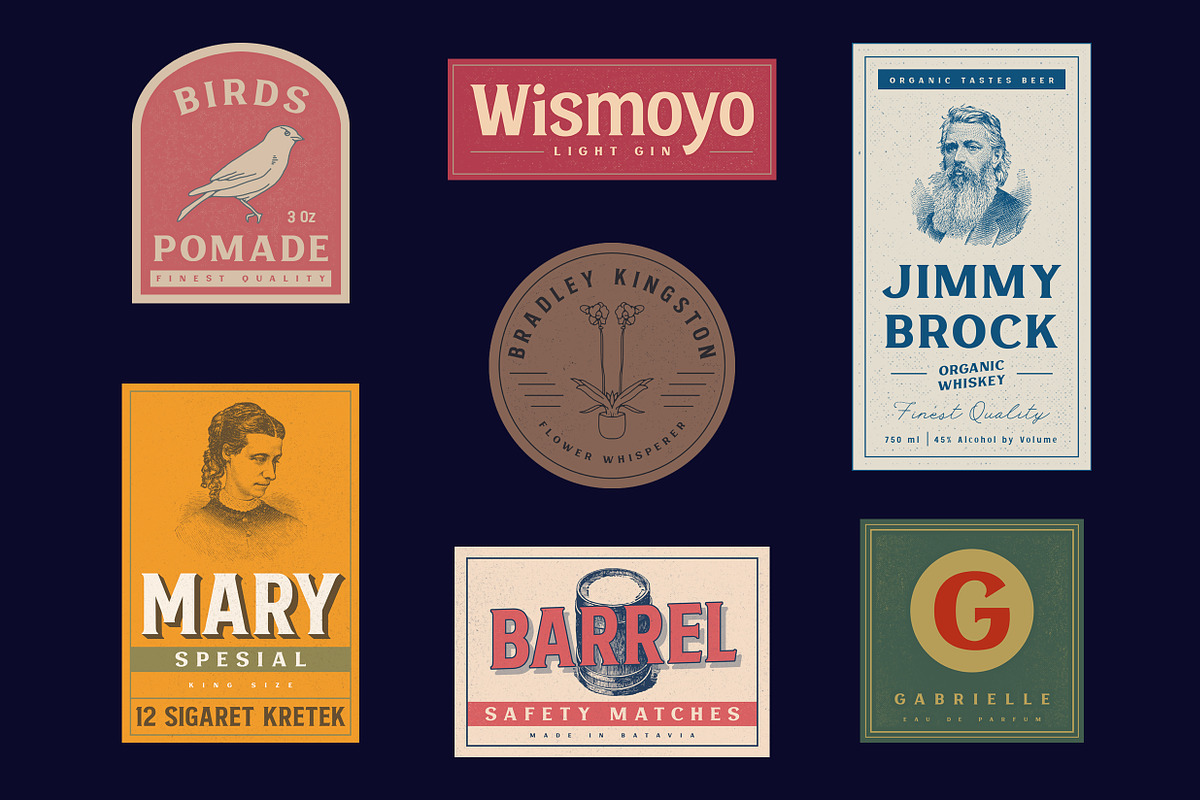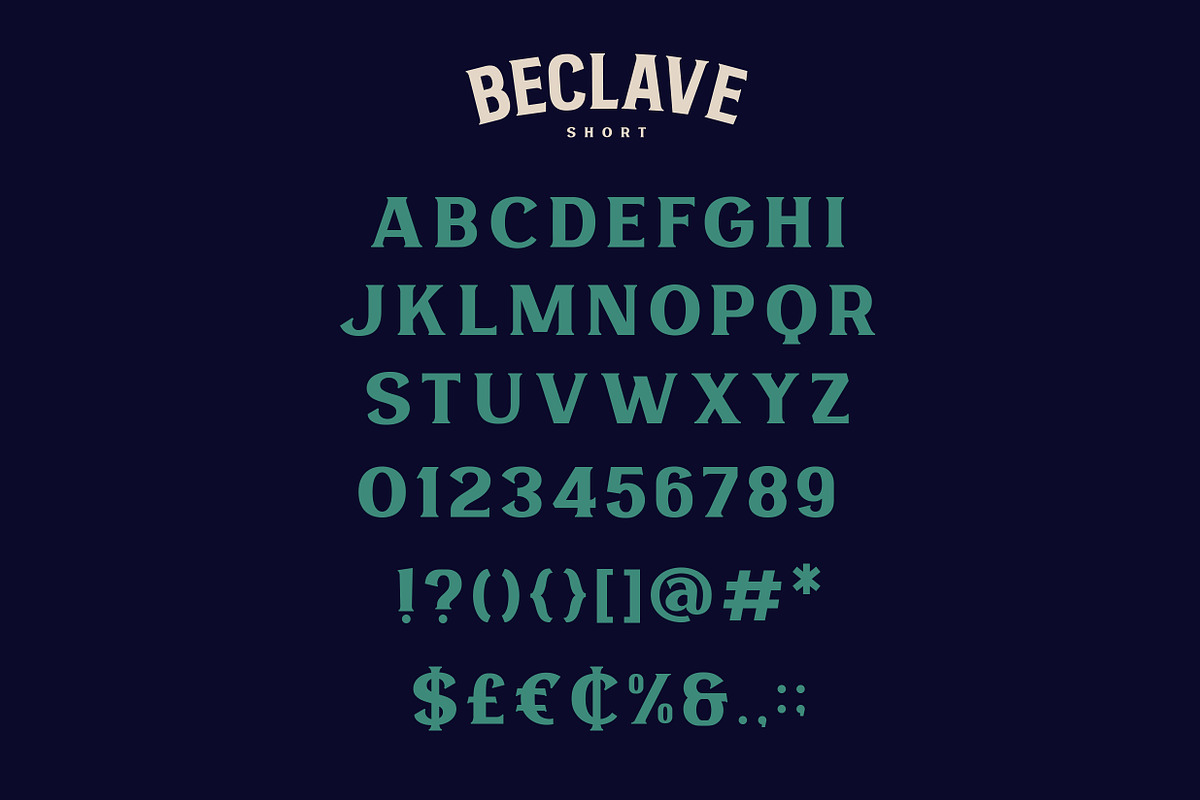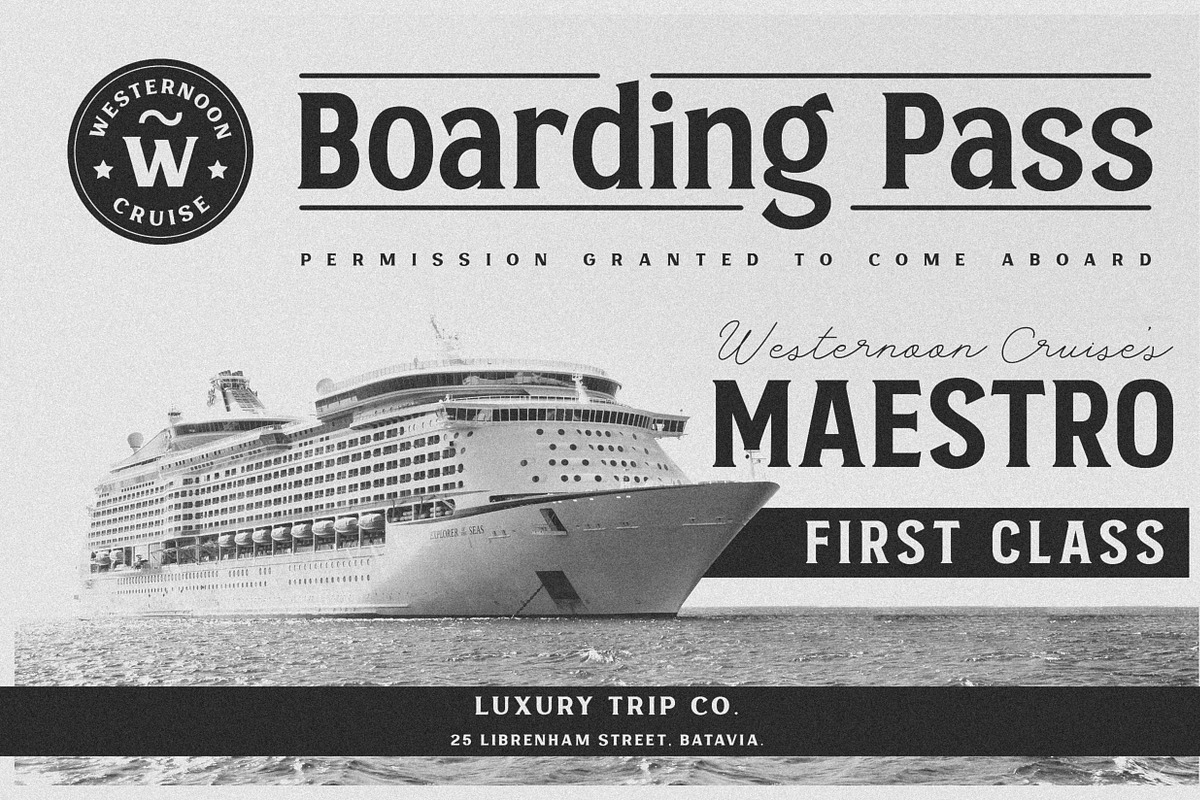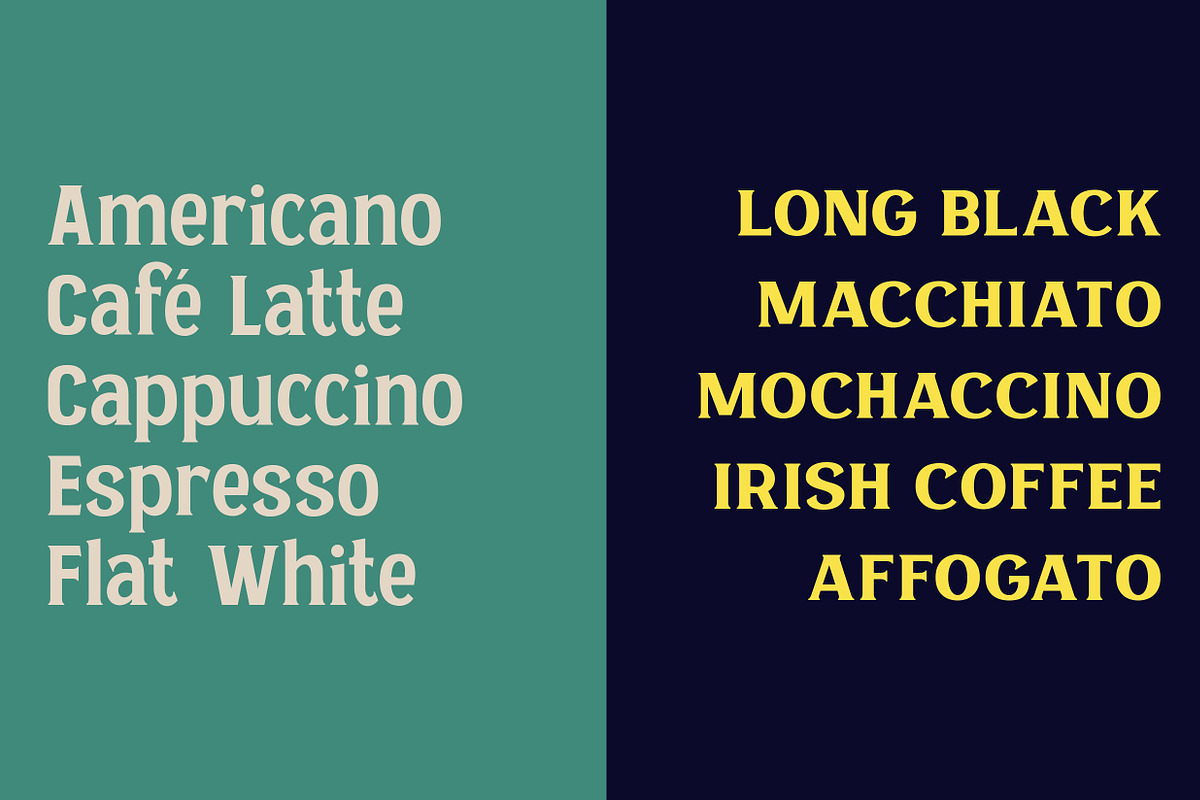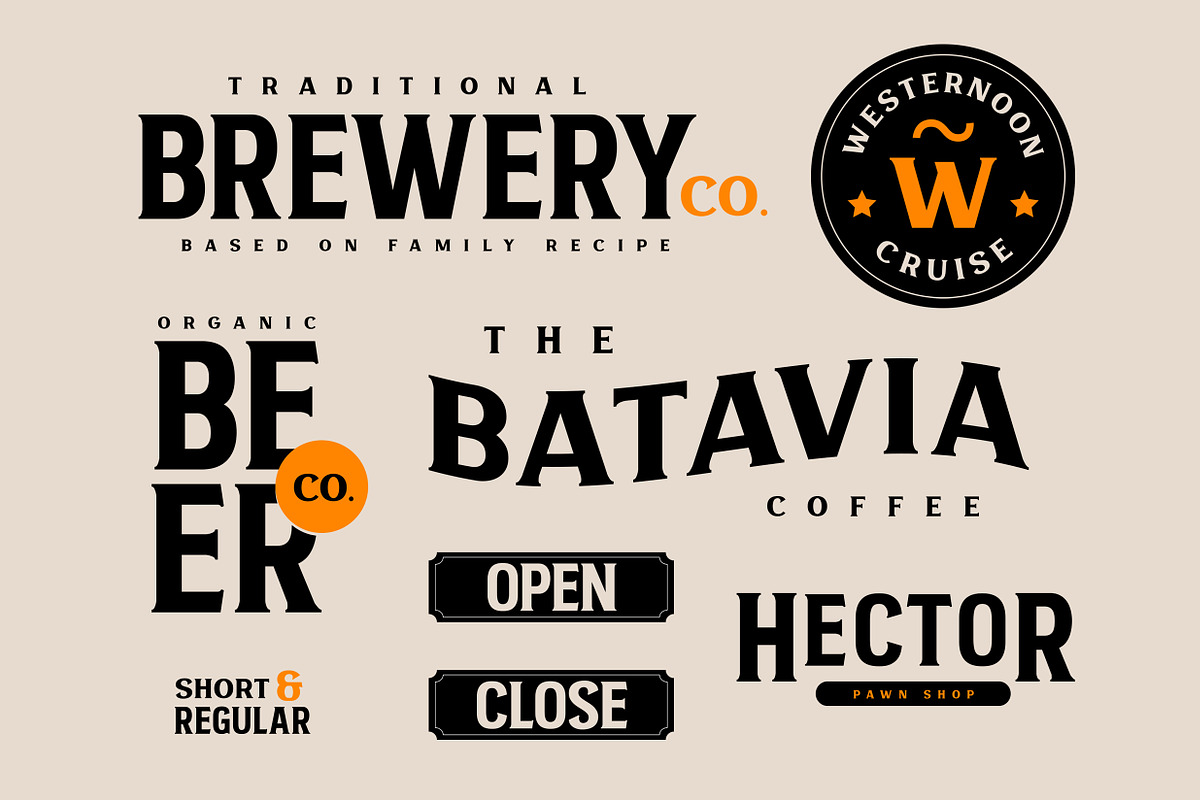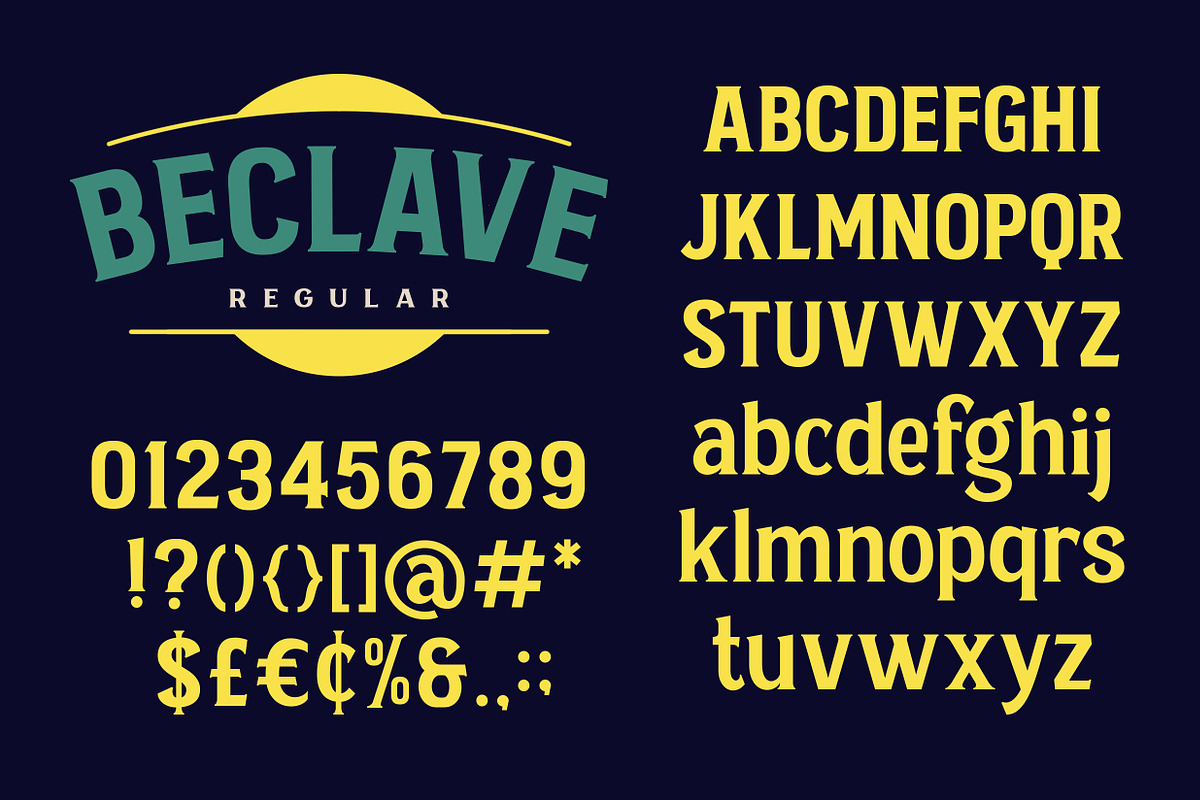
Beclave - Vintage Typeface
Introducing Beclave. A pair of serif bold typeface inspired by the golden era of vintage sign and lettering back in the old days. To give you instant bold and strong statement to your brand, carefully crafted each letters by the passionate hand. tailored at its best for you who really into the vintage culture and stuff, this duo fonts are the perfect choice to go.
- Beclave Bold Regular
- Beclave Short Regular